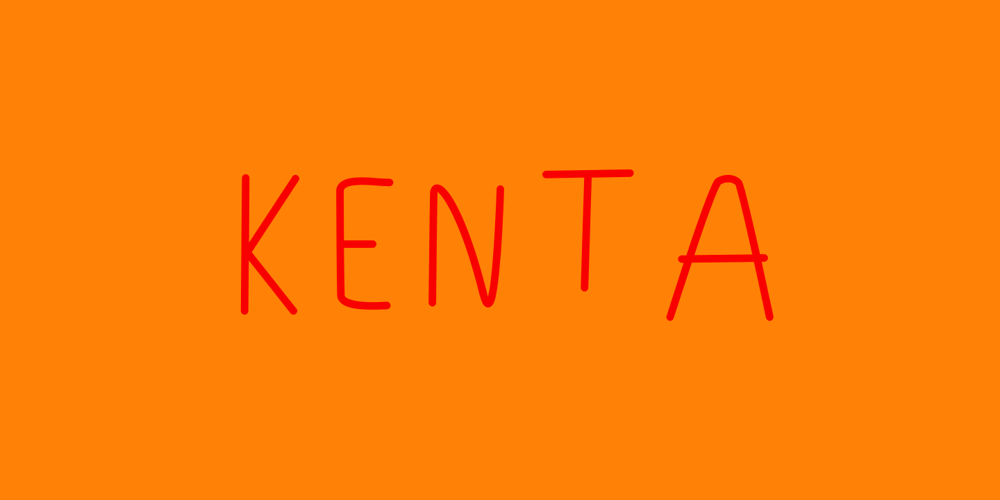
Kenta Font Family was designed by Arief Rochman and published by 4RM Font. Kenta contains 5 styles and family package options. Unique and funny are the hallmarks of a kenta font, this font is made with a wider width to make it look unique, and is combined with lazy hand strokes to make it look funny. suitable for use in casual themed graphic designs.